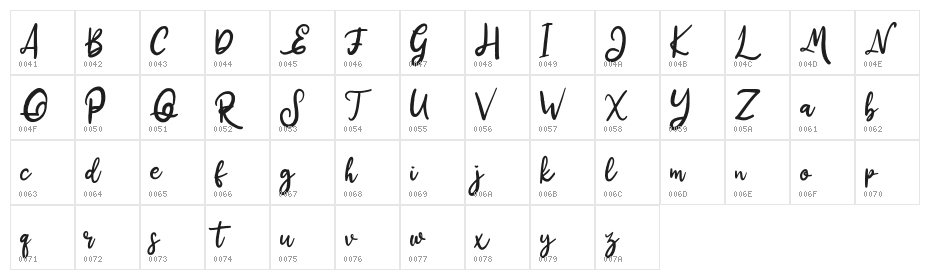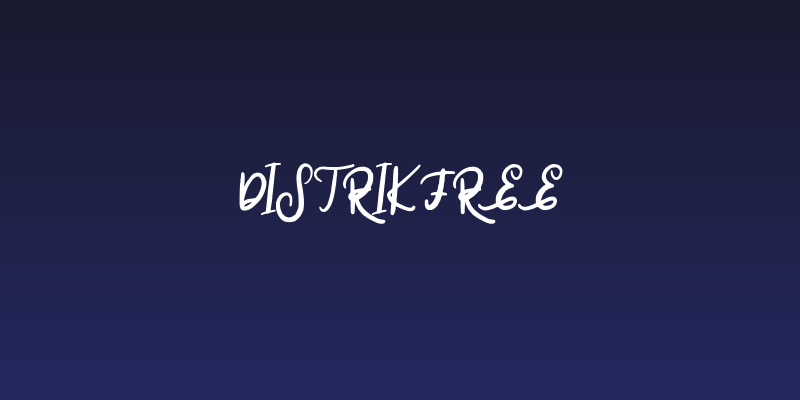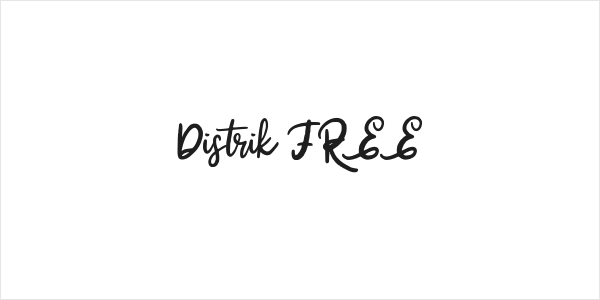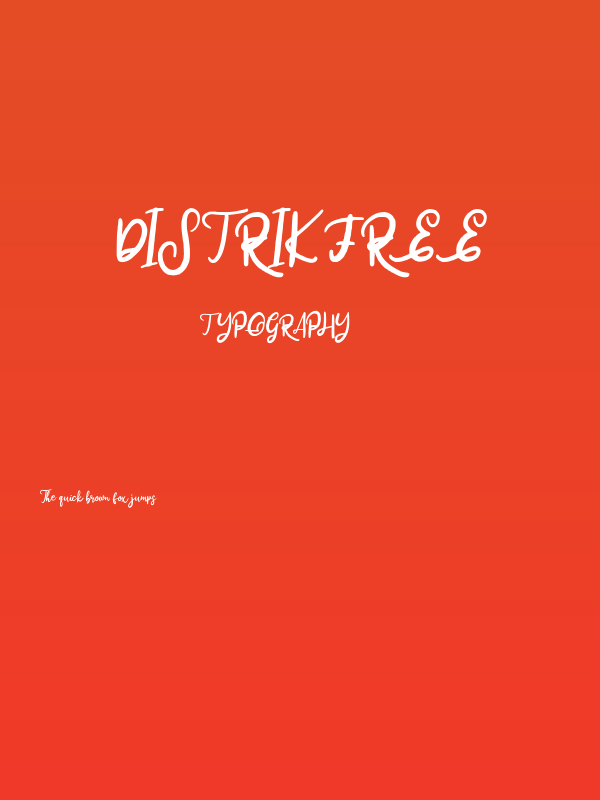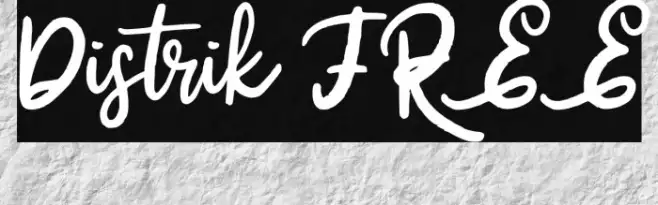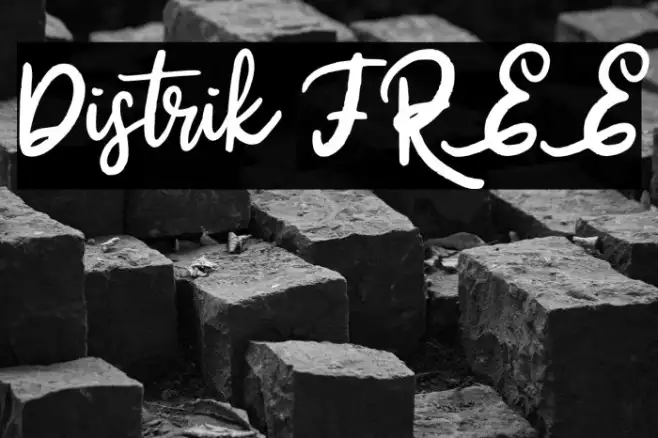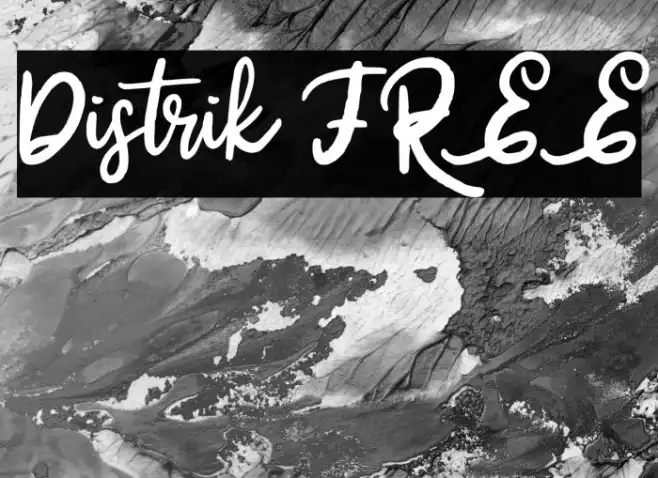
Distrik FREE Font
Distrik FREE Description
This font features a lively and dynamic script style with a handwritten appearance. The letters are connected, giving it a fluid and continuous flow, reminiscent of casual handwriting. The uppercase letters are bold and expressive, while the lowercase letters maintain a consistent style with a slight slant, adding to the overall elegance. The strokes vary in thickness, providing a medium contrast that enhances readability while maintaining a playful aesthetic. The font includes a full set of uppercase and lowercase letters, numerals, and a selection of special characters, making it versatile for various design needs.